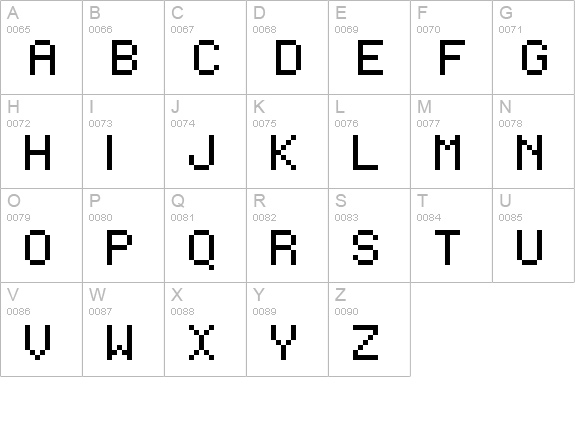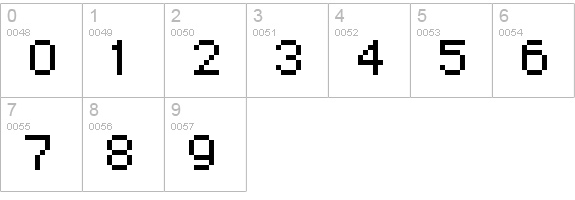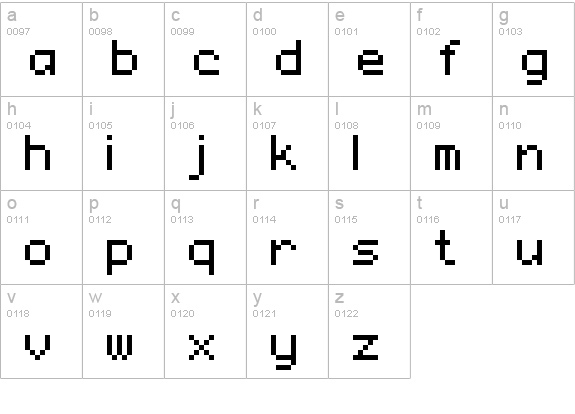
Hachipochi-EightAl Font Details
Introducing Hachipochi-EightAl, a remarkable font that exudes elegance and sophistication. With its sleek and modern design, this font is perfect for a wide range of creative projects, from logos and branding to invitations and social media posts. Hachipochi-EightAl effortlessly combines classic aesthetics with a contemporary twist, making it a versatile choice for both professional and personal use. But what sets Hachipochi-EightAl apart from other fonts is its incredible affordability - it's absolutely free! That's right, you can now enhance your designs without spending a dime. This font is freely available to download at FontsMarket.com, a trusted source for high-quality fonts. With Hachipochi-EightAl, you'll have access to a vast array of characters, including uppercase and lowercase letters, numerals, punctuation marks, and special symbols. Its clean lines and balanced proportions ensure legibility and readability across different platforms and mediums. Whether you're a designer, blogger, or simply someone looking to add a touch of sophistication to their projects, Hachipochi-EightAl is the perfect choice. So why wait? Head over to FontsMarket.com and download this incredible font for free today. Elevate your designs and make a lasting impression with Hachipochi-EightAl.